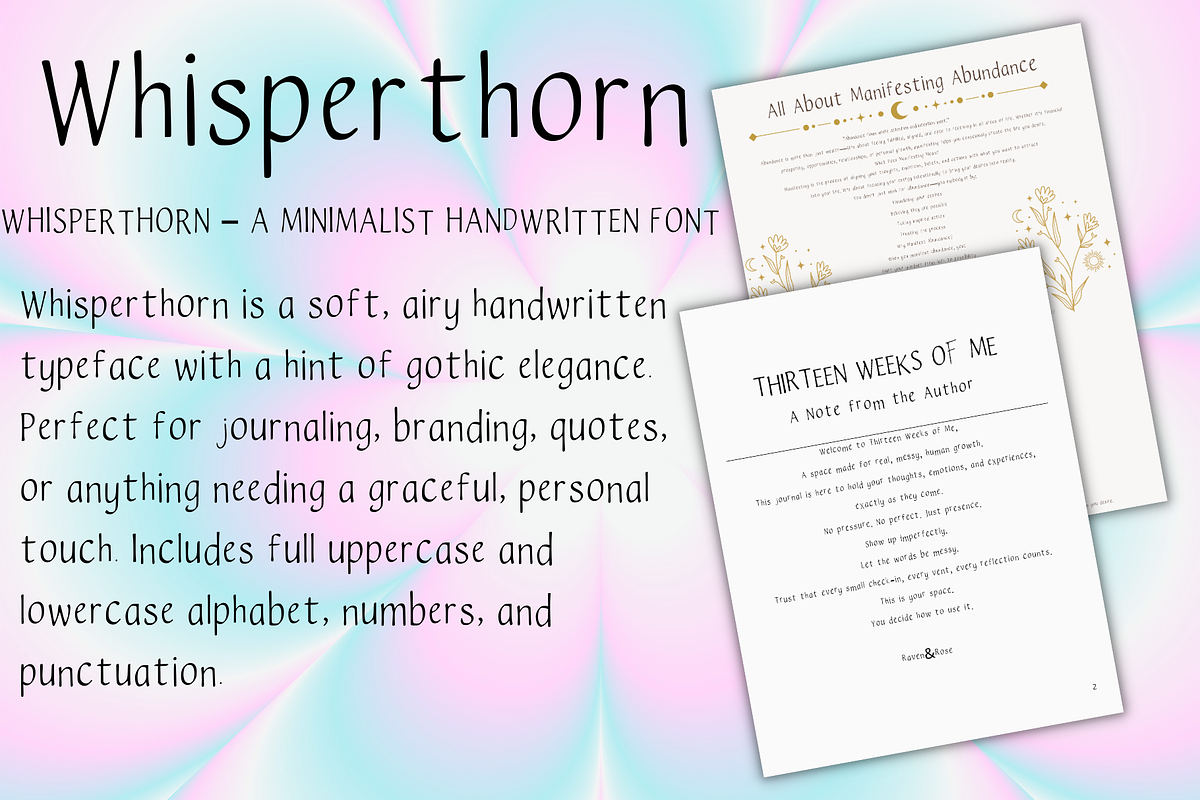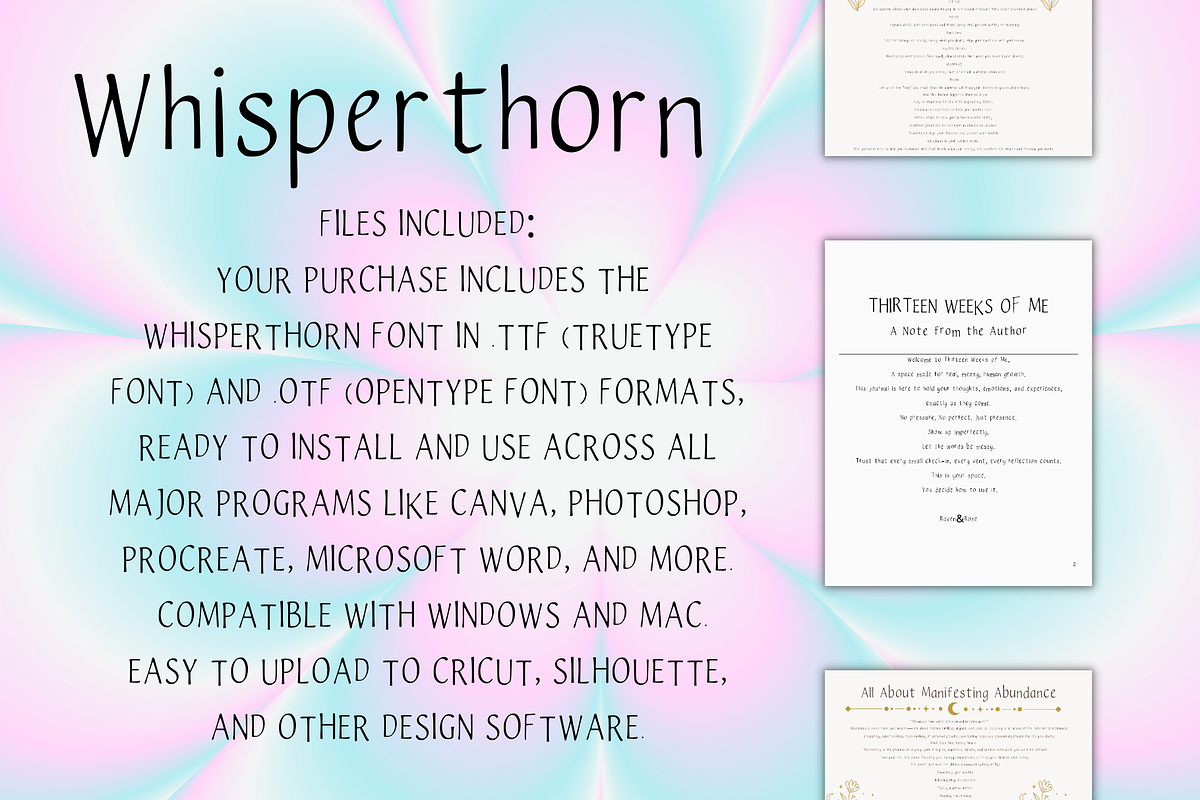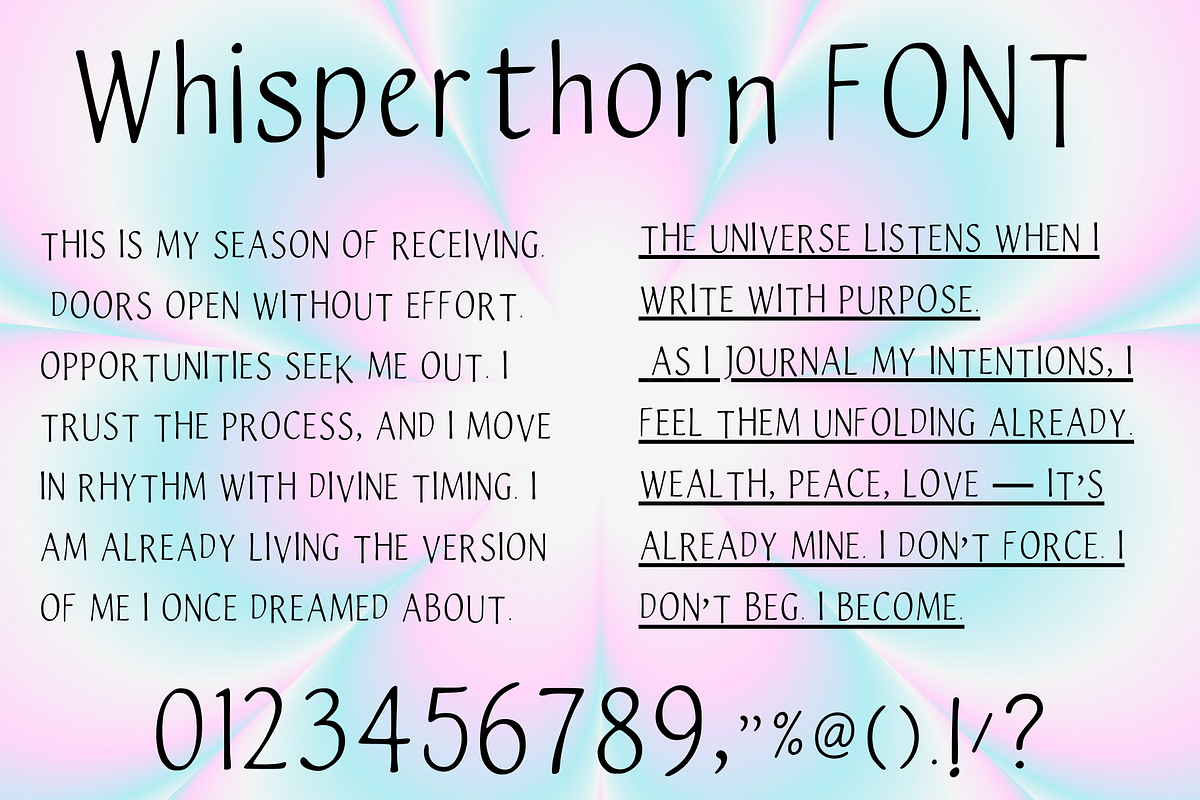
Whisperthorn – Minimalist Handwritte
Whisperthorn is a graceful handwritten font with thin, flowing lines and soft curves.
Inspired by a minimalist gothic aesthetic, it’s perfect for journals, logos, branding, quotes, invitations, spiritual designs, and more.
Whisperthorn pairs beautifully with celestial, vintage, and soft-boho designs — helping your words whisper with timeless elegance.
Uppercase A–Z
Lowercase a–z
Numbers 0–9
Basic punctuation & symbols (.,?!@%+-=/)